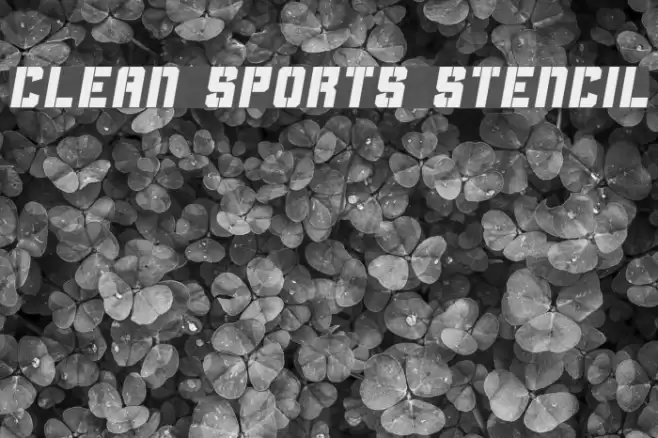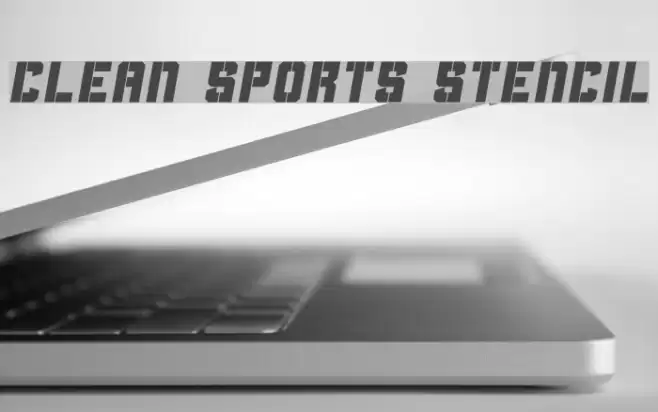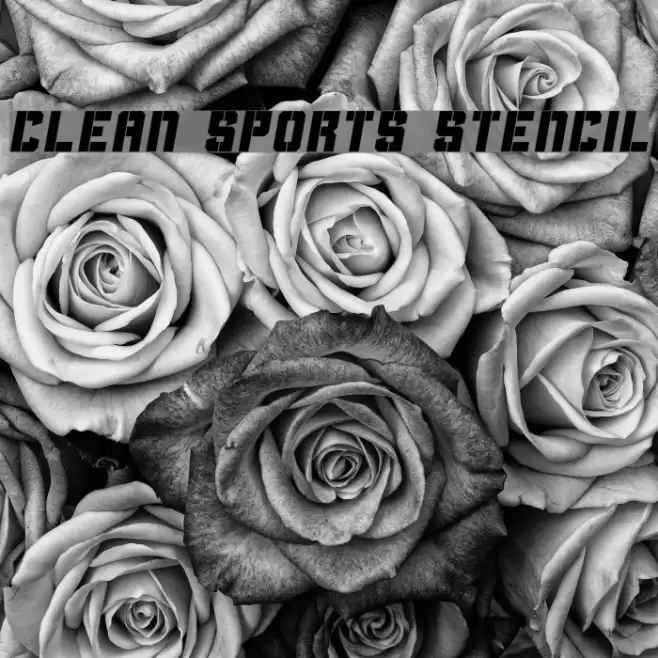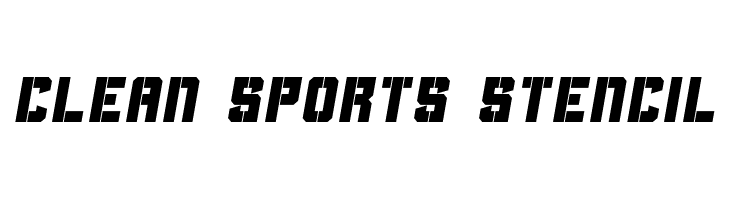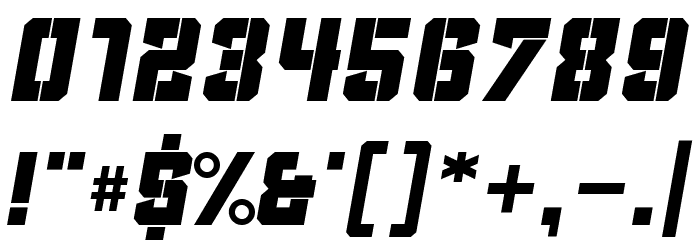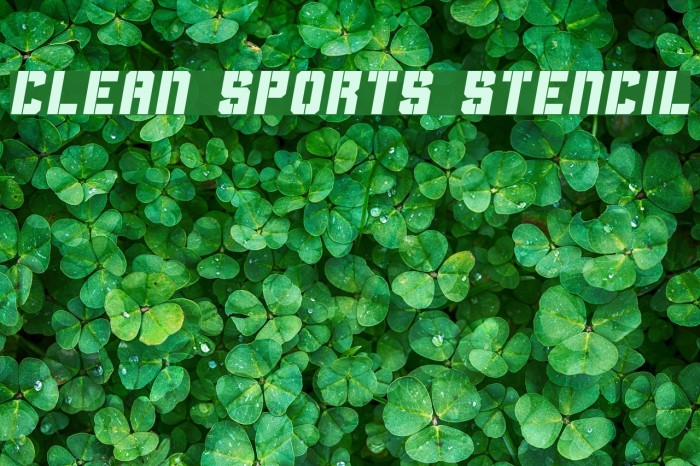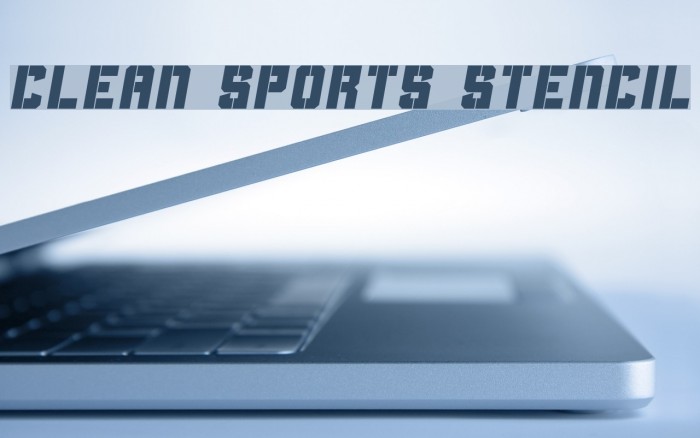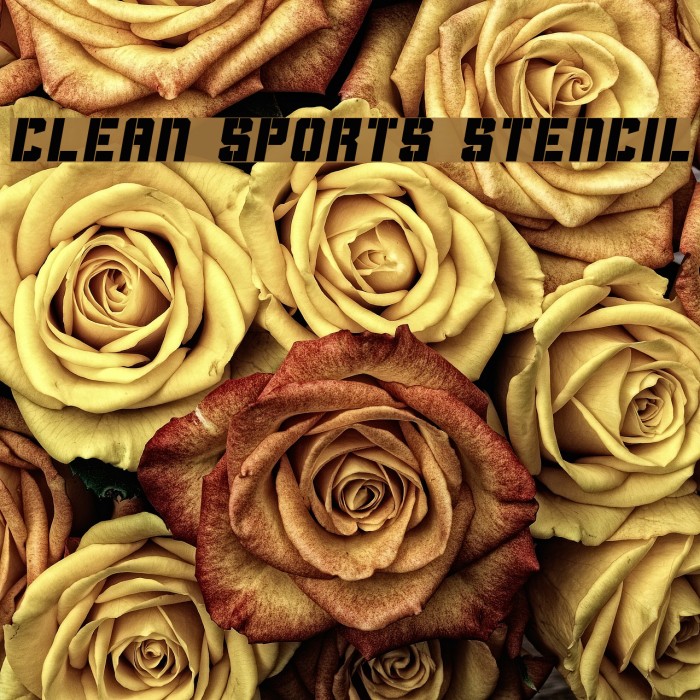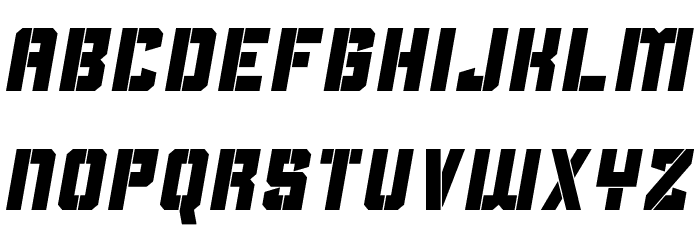
Clean Sports Stencil Font
Clean Sports Stencil Description
This font features a bold and dynamic stencil design, characterized by its strong geometric shapes and angular cuts. The uppercase and lowercase letters maintain a consistent width, giving it a uniform appearance. The numbers and special characters follow the same bold style, ensuring a cohesive look across all characters. The stencil gaps add a rugged, industrial feel, making it ideal for projects that require a sporty or military aesthetic. Its boldness ensures high visibility, making it suitable for attention-grabbing headlines or signage.
A bold, geometric stencil font with a sporty, industrial feel from Uncategorized fonts.
- Proposed Projects: Ideal for sports branding, military-themed designs, posters, and signage.
- Use Case: Headlines, Logos, Signage